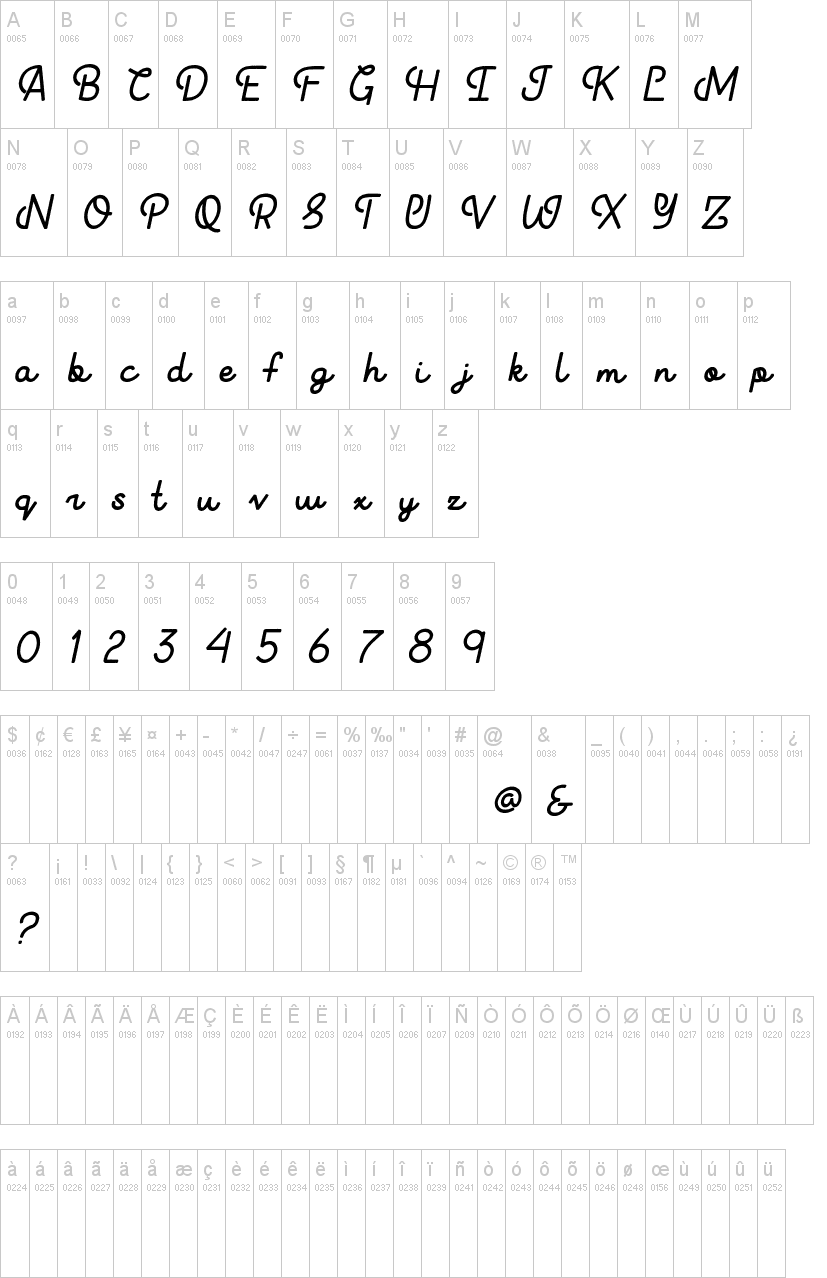
It's the right time for this vintage font to be on your next project!
-The product includes 6 different styles:
Fraulein Revival Regular
Fraulein Revival Italic
Fraulein Revival Display
Fraulein Revival Italic Display
Fraulein Revival Light
Fraulein Revival Light Italic